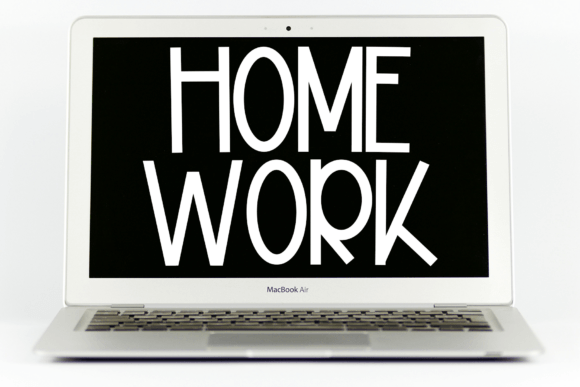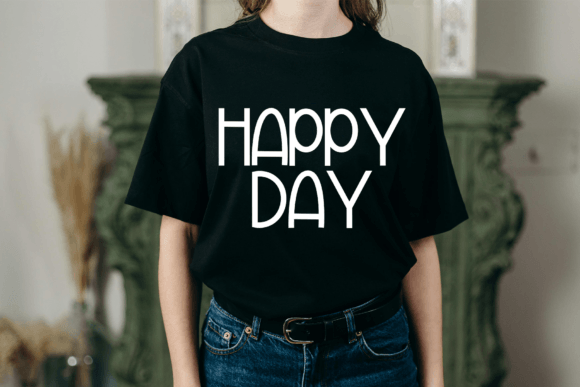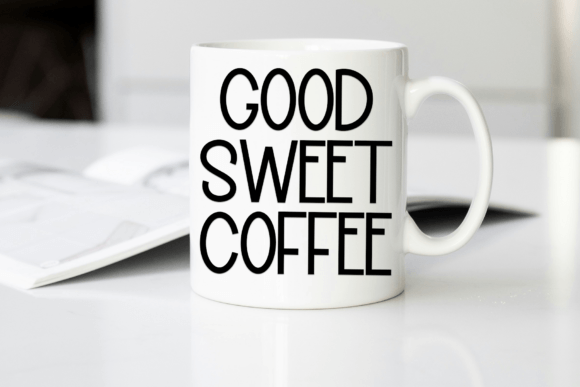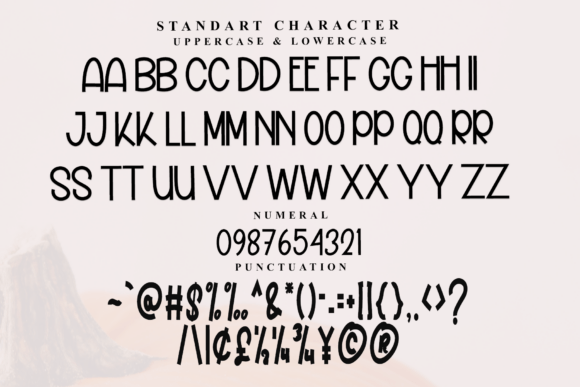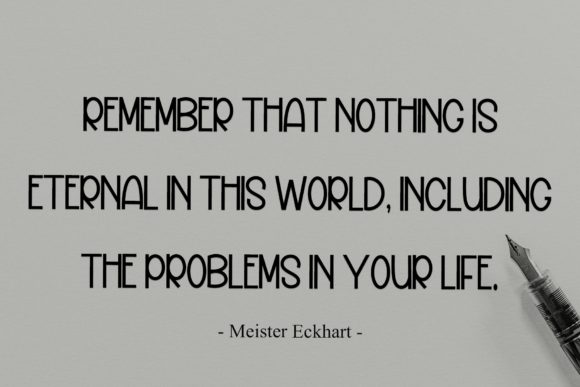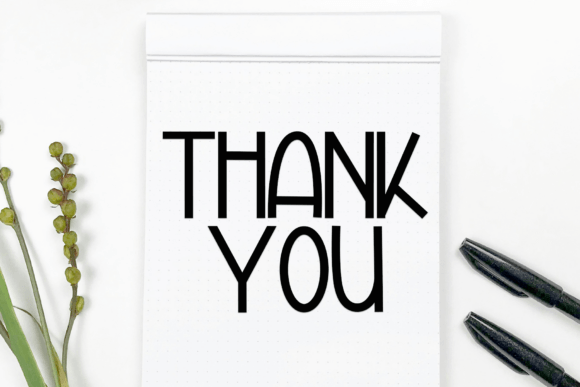
Introducing Girl Child Font: The Sweet and Friendly Handwritten Font
Are you a designer or crafter looking for a font that can add a touch of sweetness and friendliness to your designs? Look no further than the Girl Child Font! This beautiful handwritten font is perfect for a wide range of projects, from invitations and greeting cards to branding and packaging.
What Makes Girl Child Font So Special?
Girl Child Font is a unique and natural-looking handwritten font that is sure to capture the hearts of your audience. Its sweet and friendly style makes it incredibly versatile, allowing you to use it for a variety of designs. Whether you’re creating a whimsical children’s book, a feminine fashion brand, or a heartfelt wedding invitation, this font is sure to fit the bill.
Key Features of Girl Child Font
- Handwritten style: Girl Child Font is a genuine handwritten font, giving it a personal and authentic touch.
- Unique and natural look: The font’s natural and unique style makes it stand out from more traditional fonts.
- Versatile: Girl Child Font can be used for a wide range of designs, from playful and whimsical to elegant and sophisticated.
- Easy to read: Despite its handwritten style, Girl Child Font is easy to read and understand, making it perfect for body text and headings.
How to Use Girl Child Font in Your Designs
Girl Child Font is incredibly easy to use and can be incorporated into your designs in a variety of ways. Here are a few ideas to get you started:
- Invitations and greeting cards: Use Girl Child Font to create beautiful and personalized invitations and greeting cards for special occasions.
- Branding and packaging: Add a touch of sweetness and friendliness to your brand with Girl Child Font. Use it for logos, labels, and packaging.
- Children’s books and educational materials: Girl Child Font is perfect for children’s books, educational materials, and activity sheets.
- Wedding and event planning: Use Girl Child Font to create beautiful and romantic wedding invitations, decorations, and signage.
Tips and Tricks for Working with Girl Child Font
Here are a few tips and tricks to help you get the most out of Girl Child Font:
- Experiment with different colors and textures: Girl Child Font looks great with a variety of colors and textures. Experiment with different combinations to find the one that works best for your design.
- Use it with other fonts: Girl Child Font pairs well with other fonts, such as sans-serif fonts and script fonts. Experiment with different combinations to create a unique look.
- Pay attention to spacing and kerning: As with any font, pay attention to spacing and kerning to ensure that your text is easy to read and visually appealing.